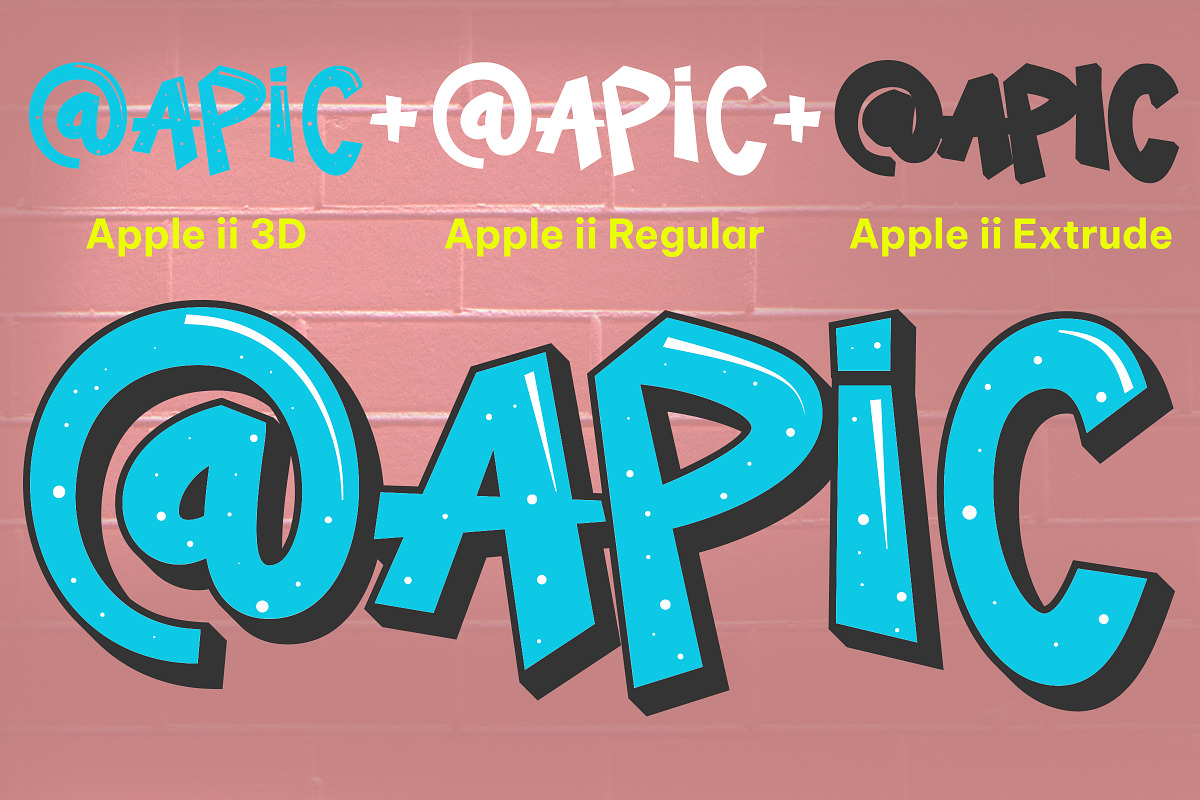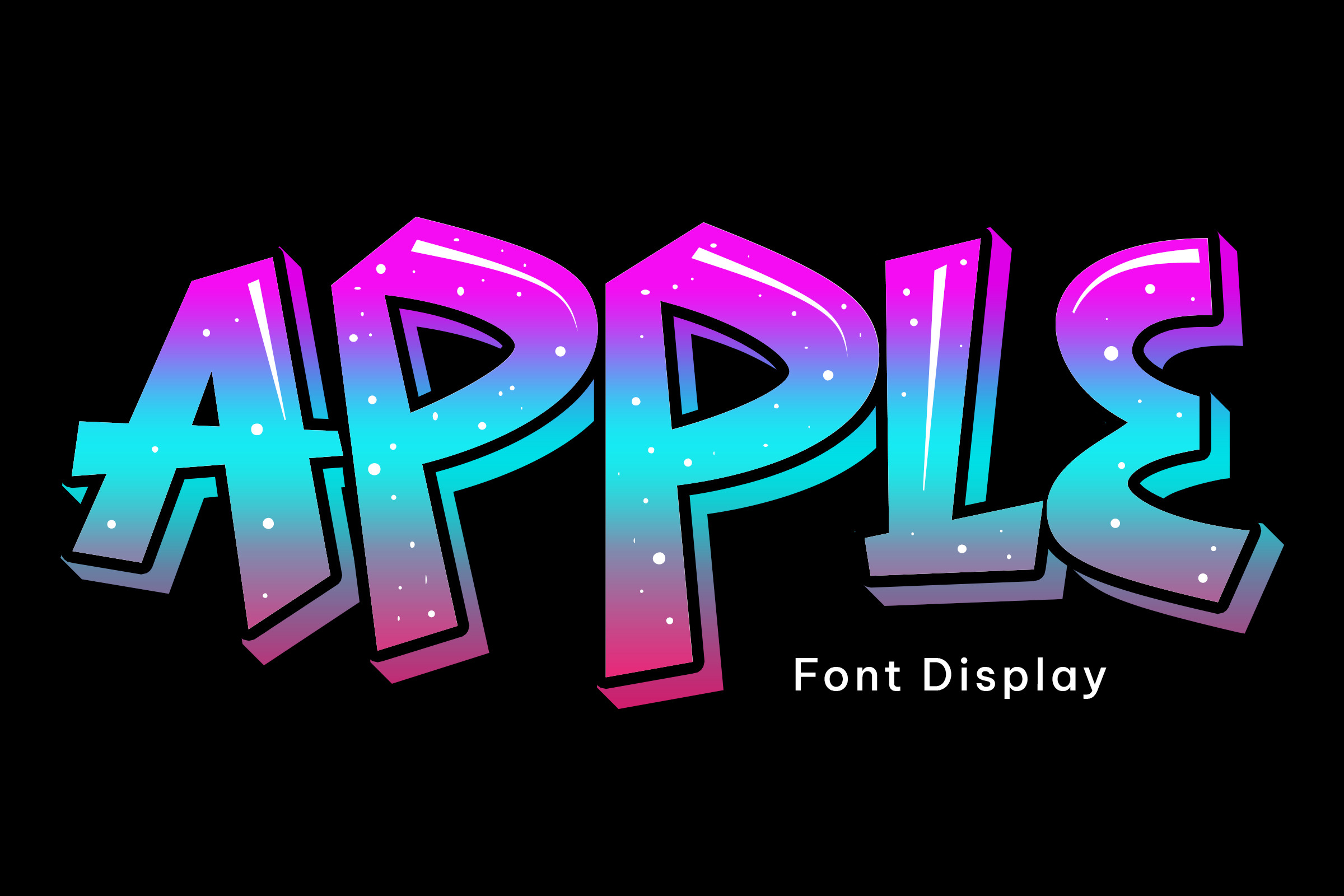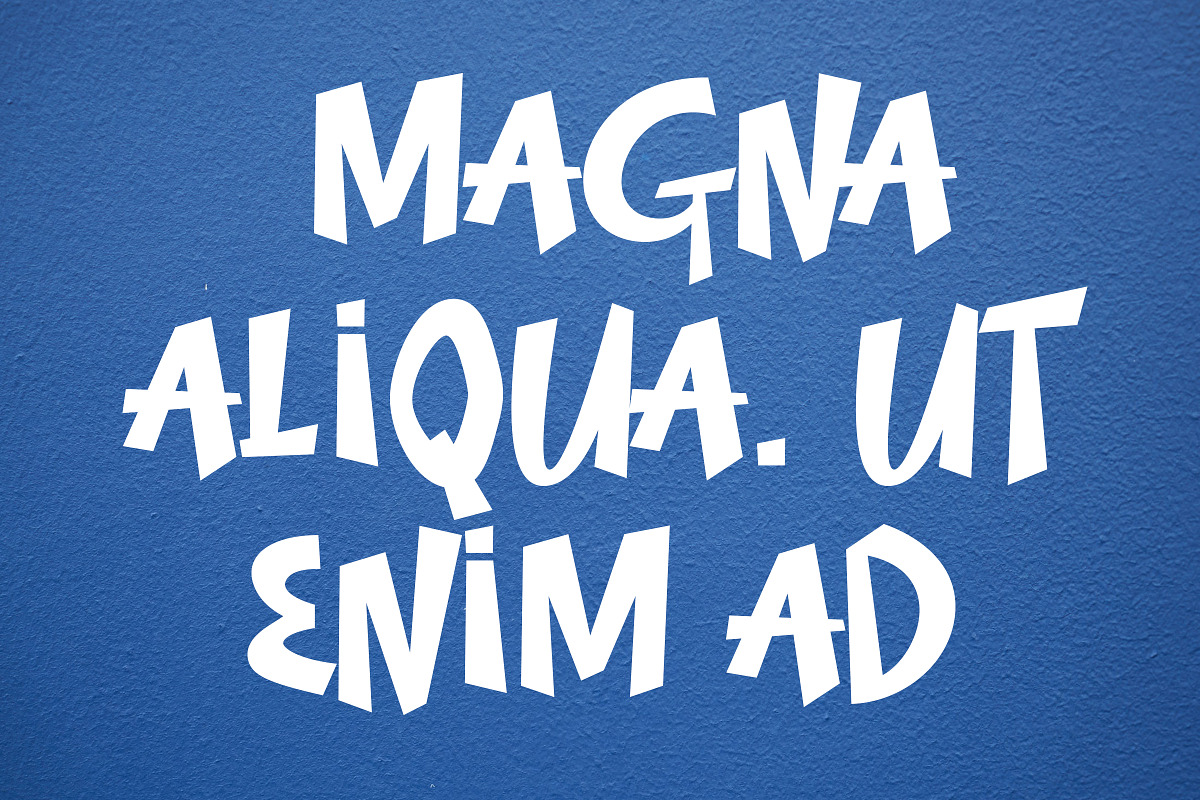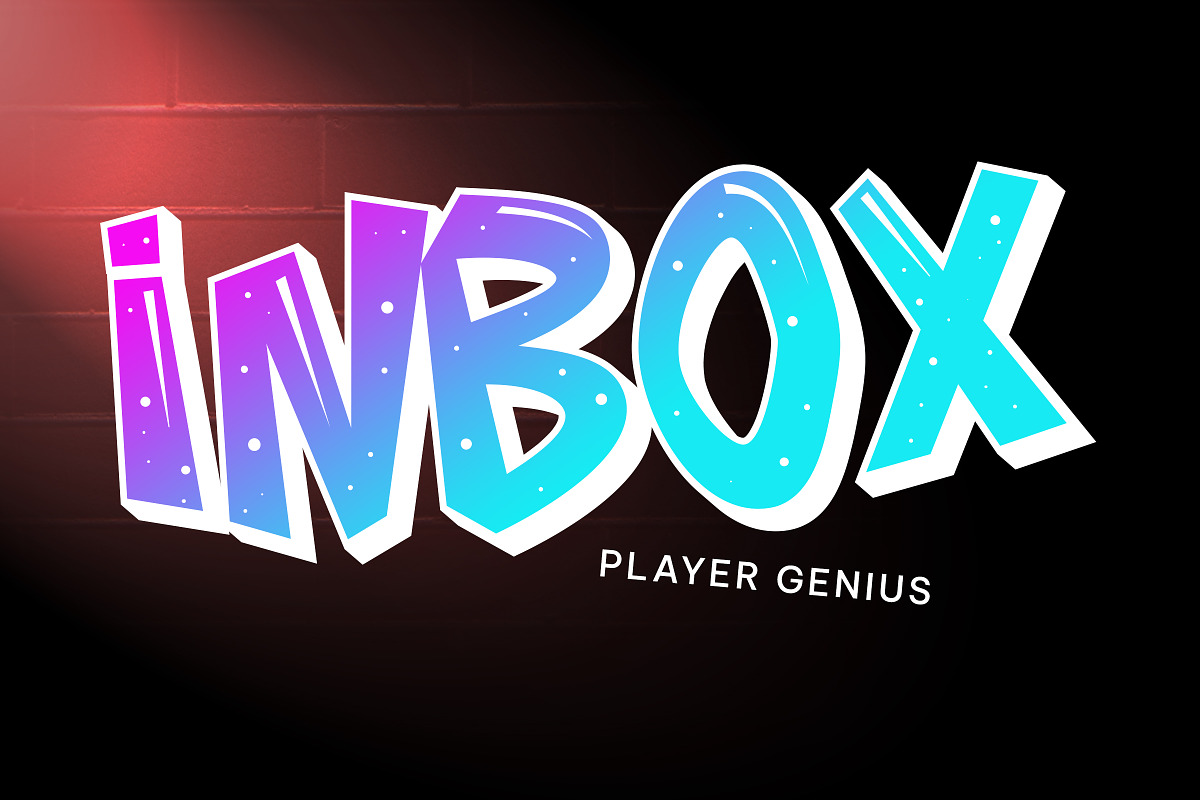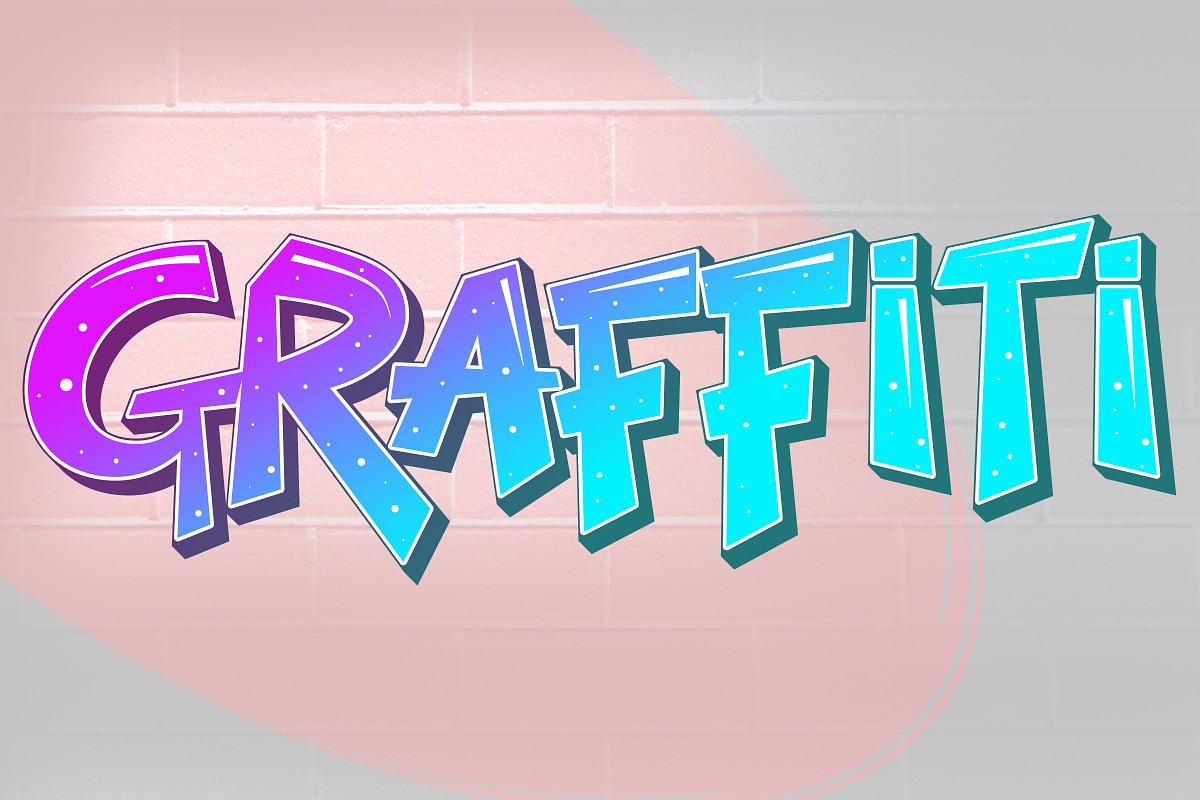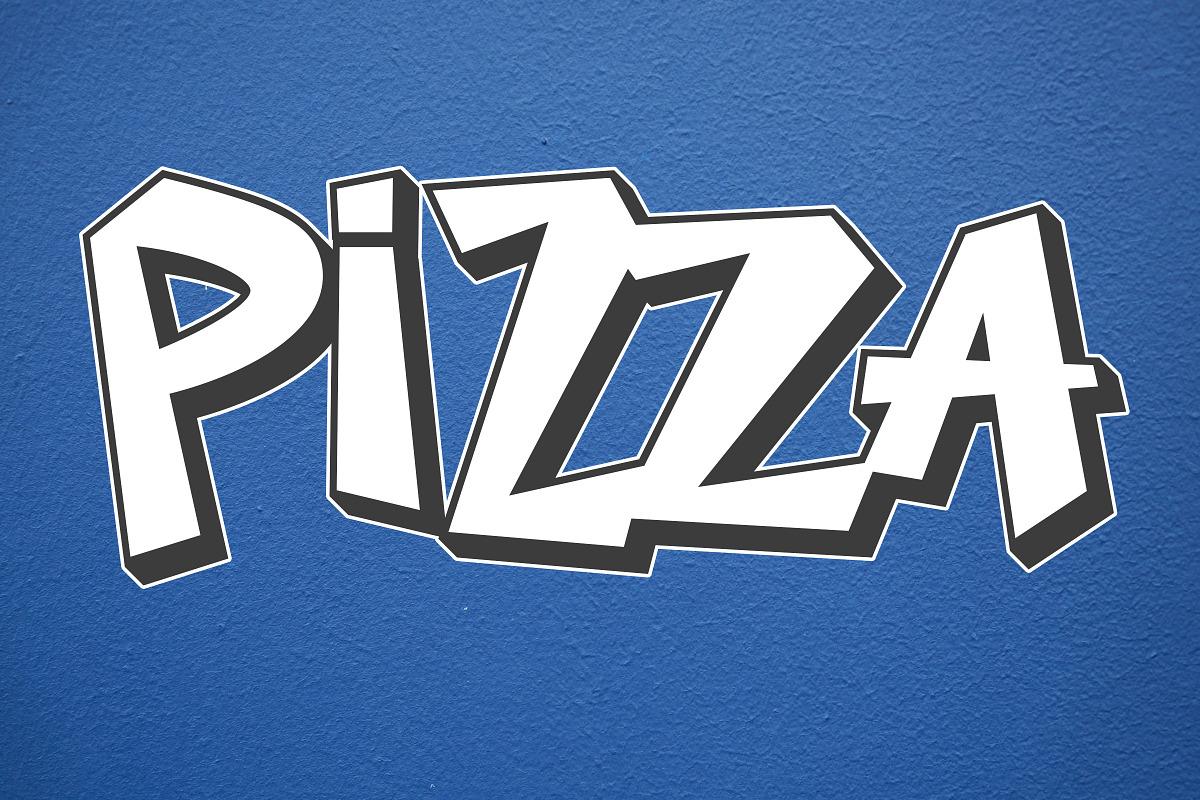
Apple ii - Display Font
Introducing Apple ii - a playful, chunky font. This adorable all caps font is perfect for creating fun instagram posts, greeting cards, stickers, tshirts, graffiti style. Comes with a few ligatures to ensure a perfectly bouncy little font that flows nicely. Add it to your fonts library, and use it to create spectacular designs!